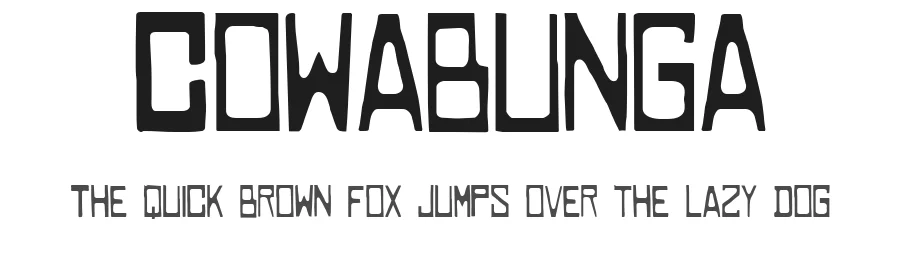
About Fest 235 Font
Fest 235 is a decorative font designed by Rico Rifa'i. It includes 76 glyphs, a medium weight, OTF (CFF) format, and 91 languages. Fest 235 is free to download; check the license details on this page before commercial use. Decorative fonts like Fest 235 work best for logos, posters, packaging, and standout headlines.
Fest 235 Font is a decorative font that shines as a display or heading face. Pair it with a clean sans-serif or serif font for body text β the contrast creates a clear hierarchy while the two styles stay balanced and easy to read.
Fest 235 Font
by Rico Rifa'i